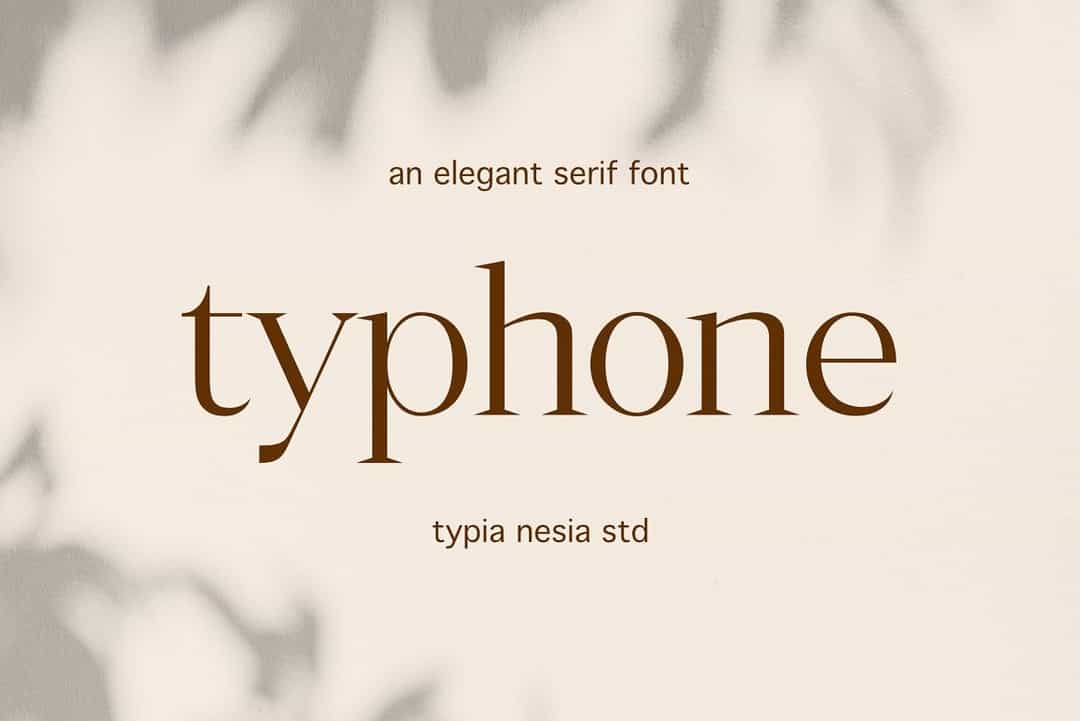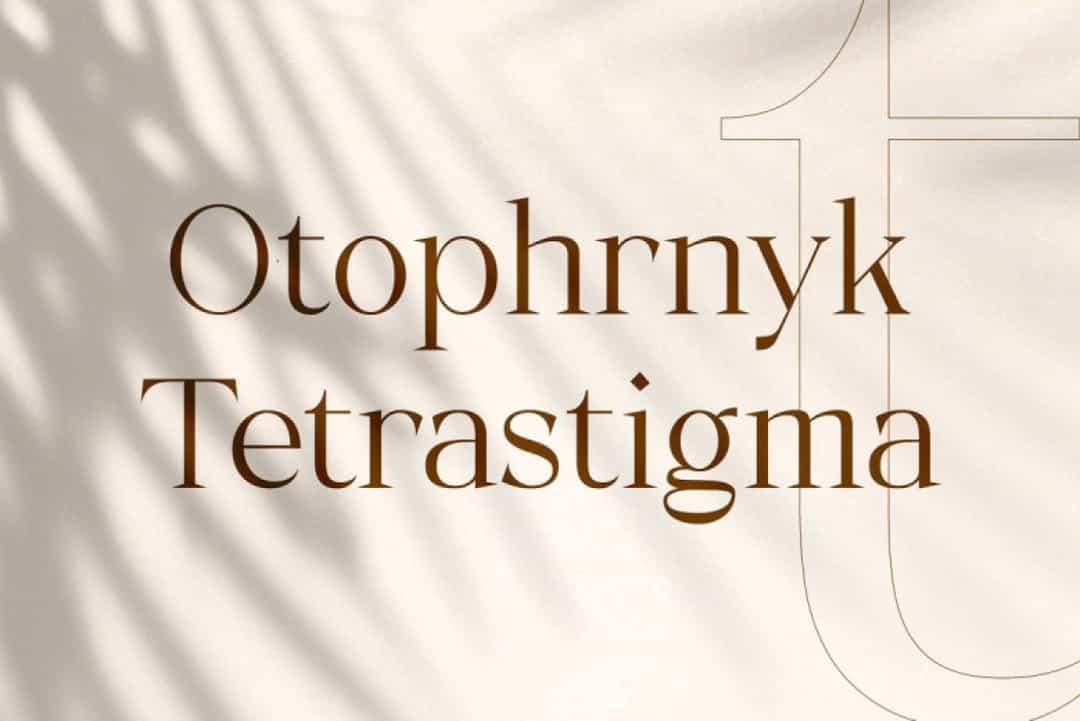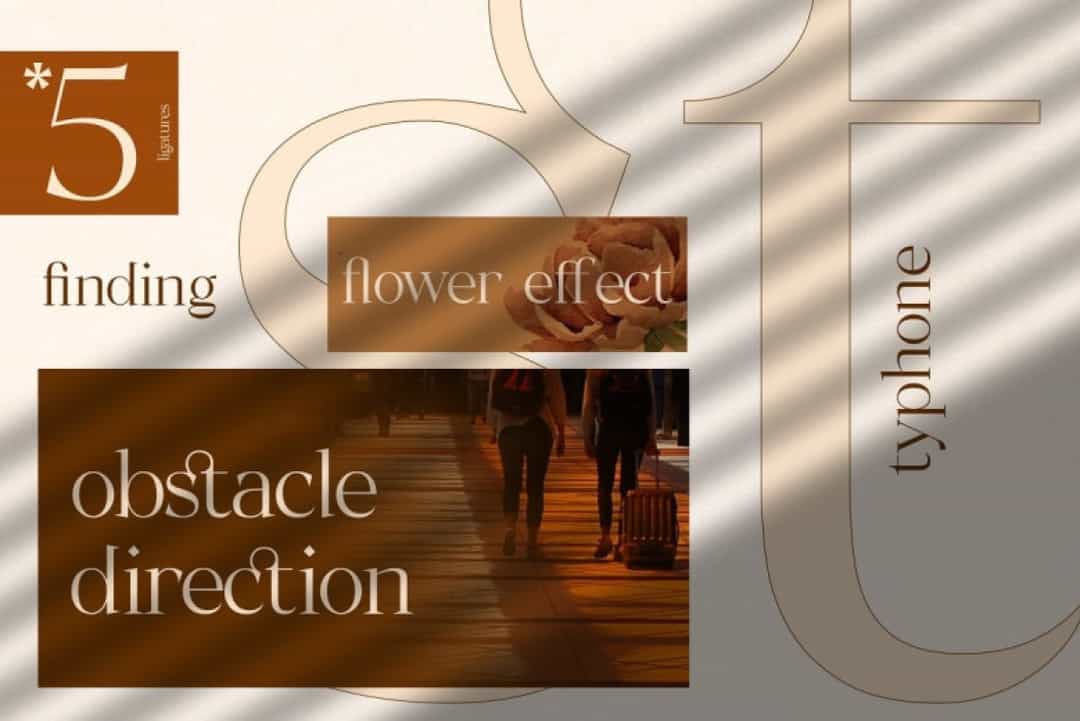
Typia Nesia’s Typhone Font is a modern serif typeface featuring luxury cool letters. Perfect for romantic and retro projects alike. Typhone font is an exquisitely soft and relaxed serif font designed with great care to meet any modern project’s requirements.